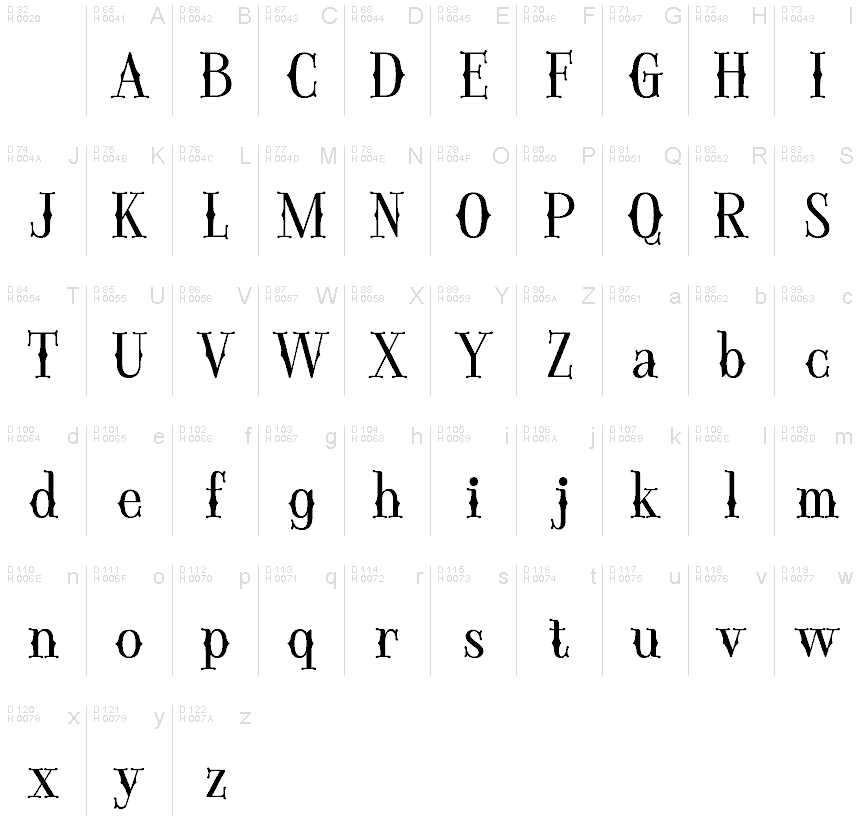
CS Greasy Regular Demo
CS Greasy font by Craft Supply Co. offers a distinctive blend of vintage appeal and rustic charm with a condensed design and serif characters. The inclusion of a distressed texture further evokes a sense of nostalgia, where traditional influences are honored but originality is still very palpable in display texts for important titles.
Applications for this free serif font include posters, apparel designs, album covers, hand-lettered logos, food business branding designs, video games displays and splash pages where its originality shines through the given matrix effect. Additional use cases can also be extended to letterheads, stationeries, flyers, greeting cards and websites.